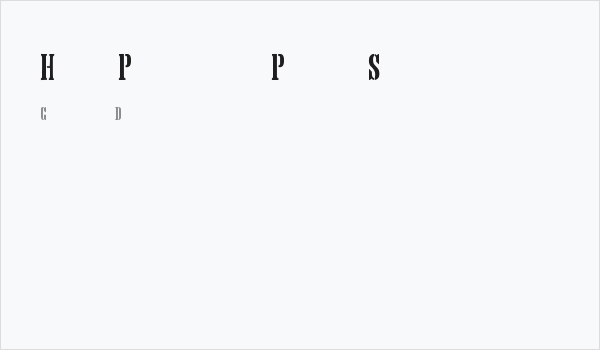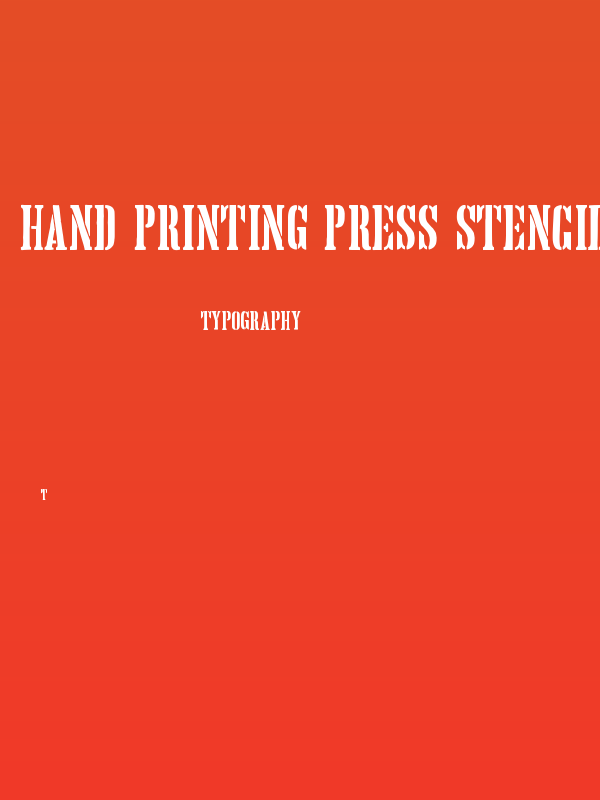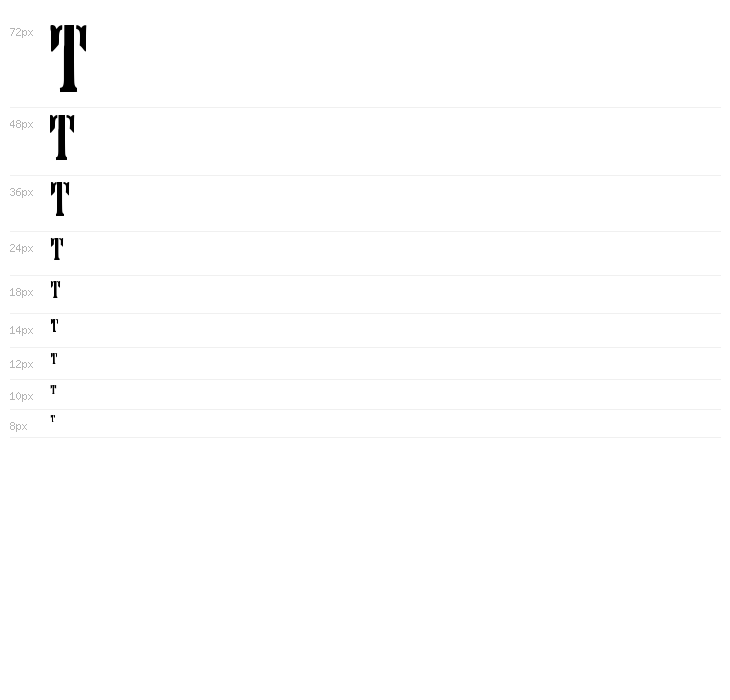
Hand Printing Press Stencil_demo Font
Hand Printing Press Stencil_demo Description
This font features a bold, stencil-like design with strong, thick lines and distinct cutouts that give it a rugged, industrial feel. The uppercase letters are uniformly structured, with sharp edges and a consistent height, creating a sense of strength and stability. The design is reminiscent of traditional hand-printed press styles, evoking a vintage aesthetic while maintaining a modern edge. The font's boldness makes it highly legible from a distance, making it ideal for impactful headlines or signage. Its unique cutout style adds a decorative touch, setting it apart from more conventional typefaces.
Overall StyleVintage
Use CaseHeadlines, Logos, Signage
Proposed ProjectsIdeal for posters, signage, branding, and any project requiring a strong, eye-catching typeface.